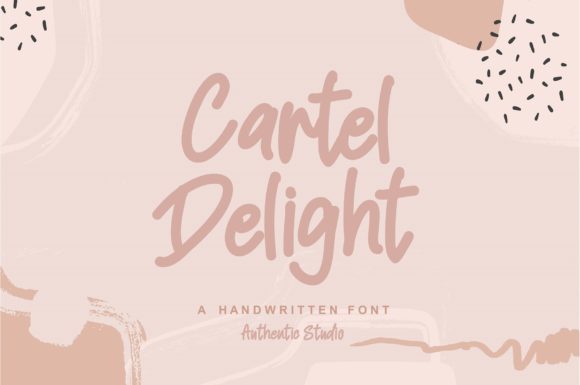
The Delightful World of Cartel Delight Font
A Personal Review of Cartel Delight
As a designer, I’m always on the lookout for fonts that can add a touch of personality to my projects. Cartel Delight is a whimsical handwritten font that has quickly become one of my favorites. Here’s what I love about it:
- ✨ Unique and playful style: Cartel Delight has a distinctive, hand-crafted feel that adds a touch of whimsy to any design.
- ✅ Highly versatile: This font is perfect for a wide range of projects, from crafts and designs to cutting, printing, and social media posts.
- 💕 Easy to read: Despite its playful nature, Cartel Delight remains clear and easy to read, making it perfect for body text and headings.
While Cartel Delight is an excellent font, it’s not without its quirks. Here are a few things to keep in mind:
- 🤔 Limited use in formal designs: Due to its playful nature, Cartel Delight might not be the best fit for formal or professional designs.
- ⚠️ Some letters may require manual kerning: As with any font, you might need to adjust the kerning of certain letters to achieve optimal results.
One of the standout features of Cartel Delight is its support for OpenType features and glyphs. These features allow you to add more personality to your text, making it more engaging and visually appealing.
The Story Behind Cartel Delight
Cartel Delight was designed with the intention of creating a font that would bring a touch of whimsy and playfulness to designs. The designer aimed to craft a font that would be easy to read, yet distinctive and eye-catching. The result is a font that’s perfect for creatives who want to add a personal touch to their projects.
| Font Name | Cartel Delight Font |
| Author | Authentic Studio |
| What is Cartel Delight font best used for? | Cartel Delight is perfect for crafts, designs, cutting, printing, social media posts, and any project that requires a playful, whimsical touch. |
| Is Cartel Delight easy to read? | Yes, despite its playful nature, Cartel Delight remains clear and easy to read, making it perfect for body text and headings. |